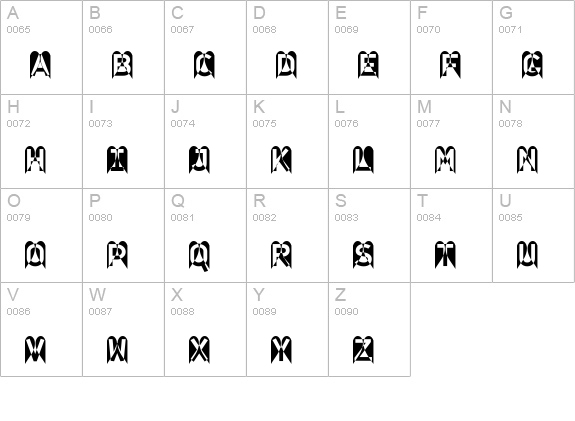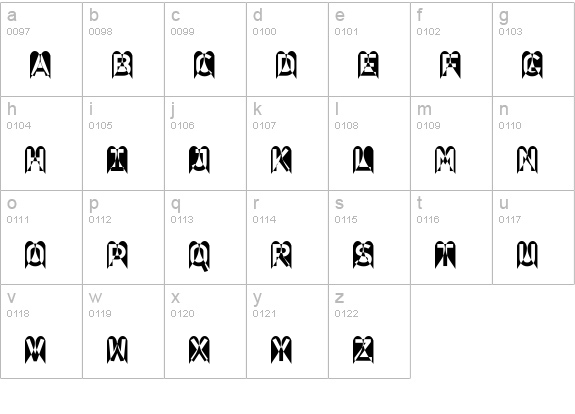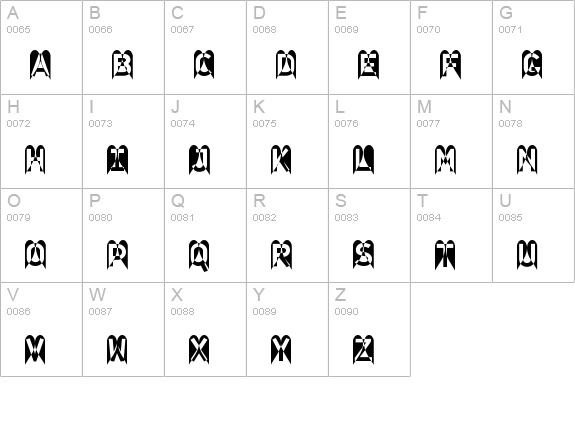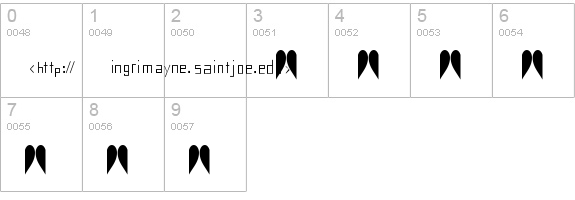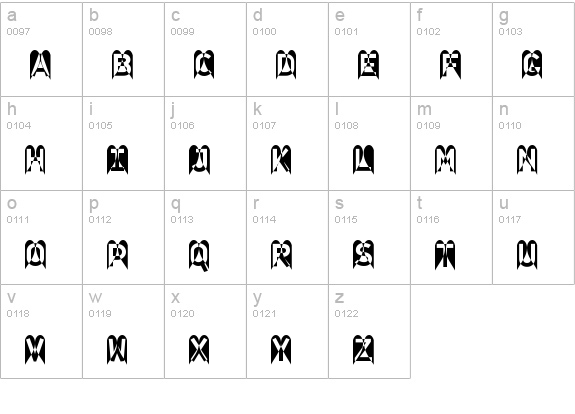
VDMassacre Font Details
VDMassacre font is an edgy and bold typeface that is sure to make a statement. Its strong and angular letterforms exude a sense of power and intensity, making it ideal for projects that require a touch of aggression and rebellion. With its sharp lines and distinctive design, VDMassacre font is perfect for creating eye-catching headlines, logos, and posters that demand attention. Whether you're looking to add a touch of edginess to your design or want to make a bold statement, this font is sure to deliver. But what sets VDMassacre font apart is that it is not only visually striking, but it is also free to download. Yes, that's right, this incredible font is freely available at FontsMarket.com. This means that you can unleash your creativity without breaking the bank. So why settle for ordinary fonts when you can have VDMassacre font? Download it today and watch your designs come to life with its powerful and captivating presence.